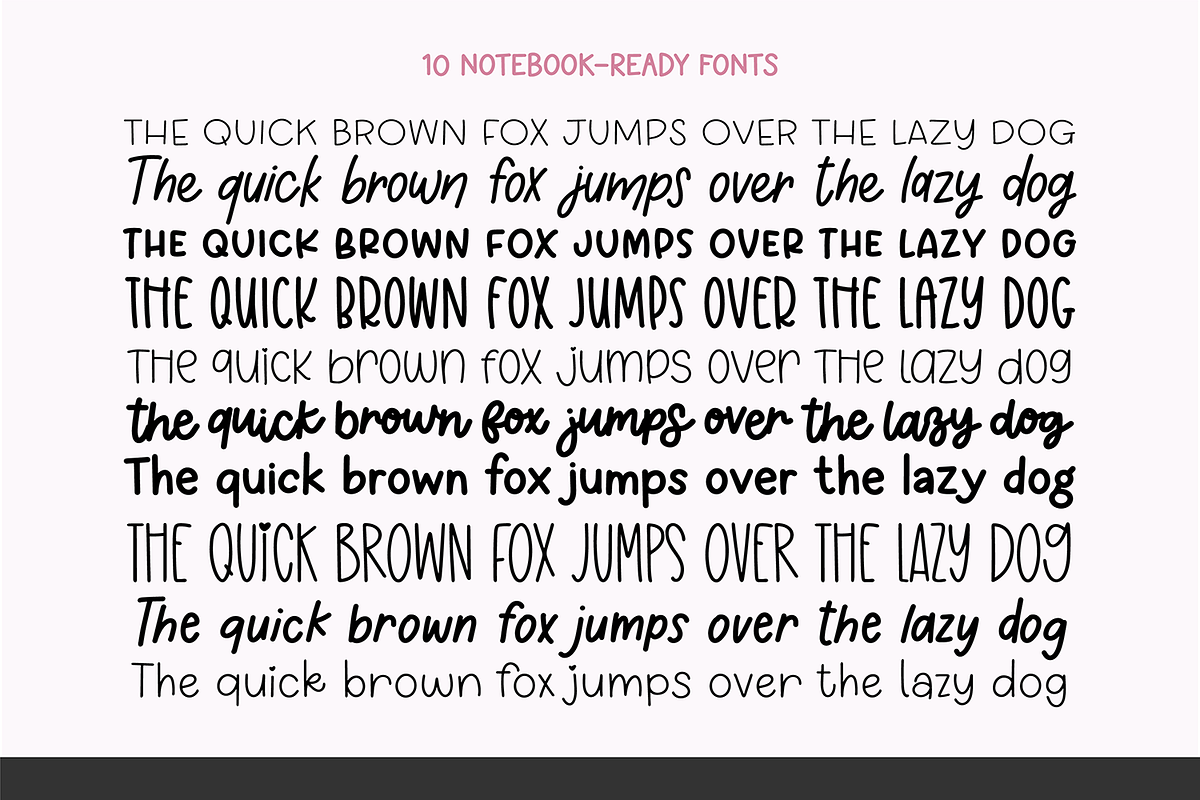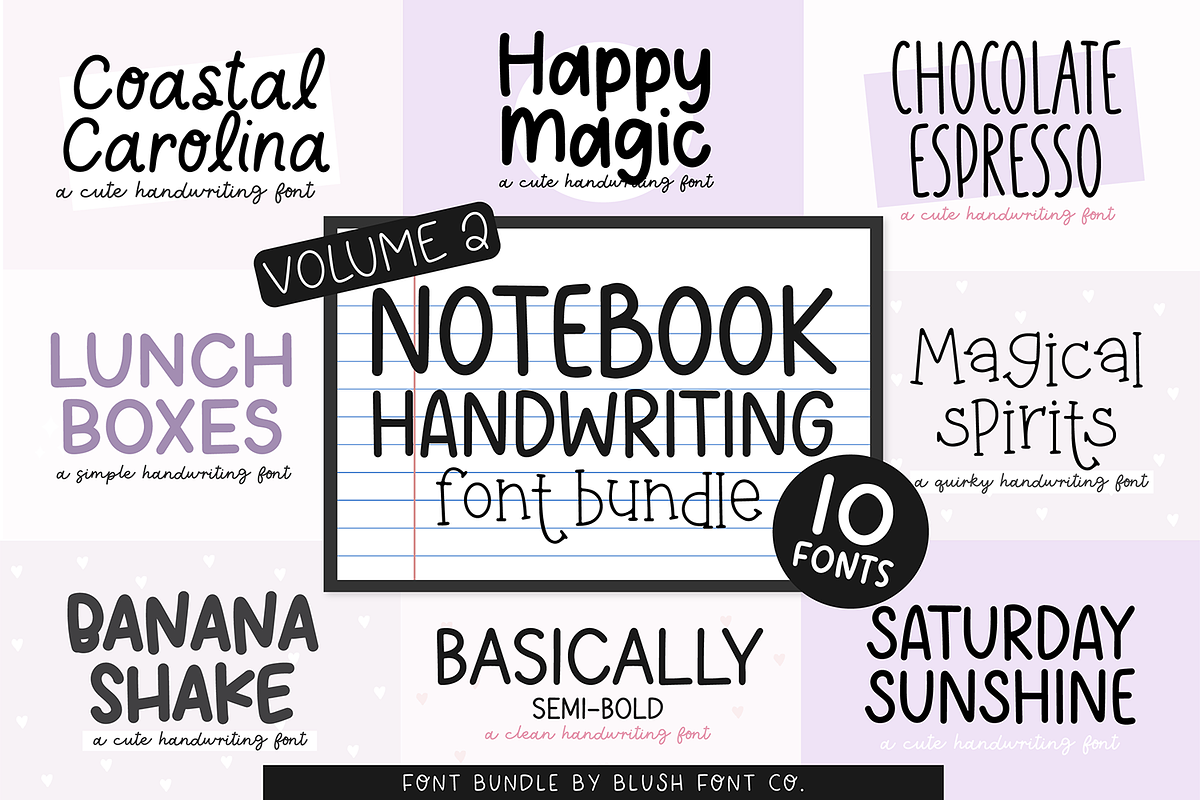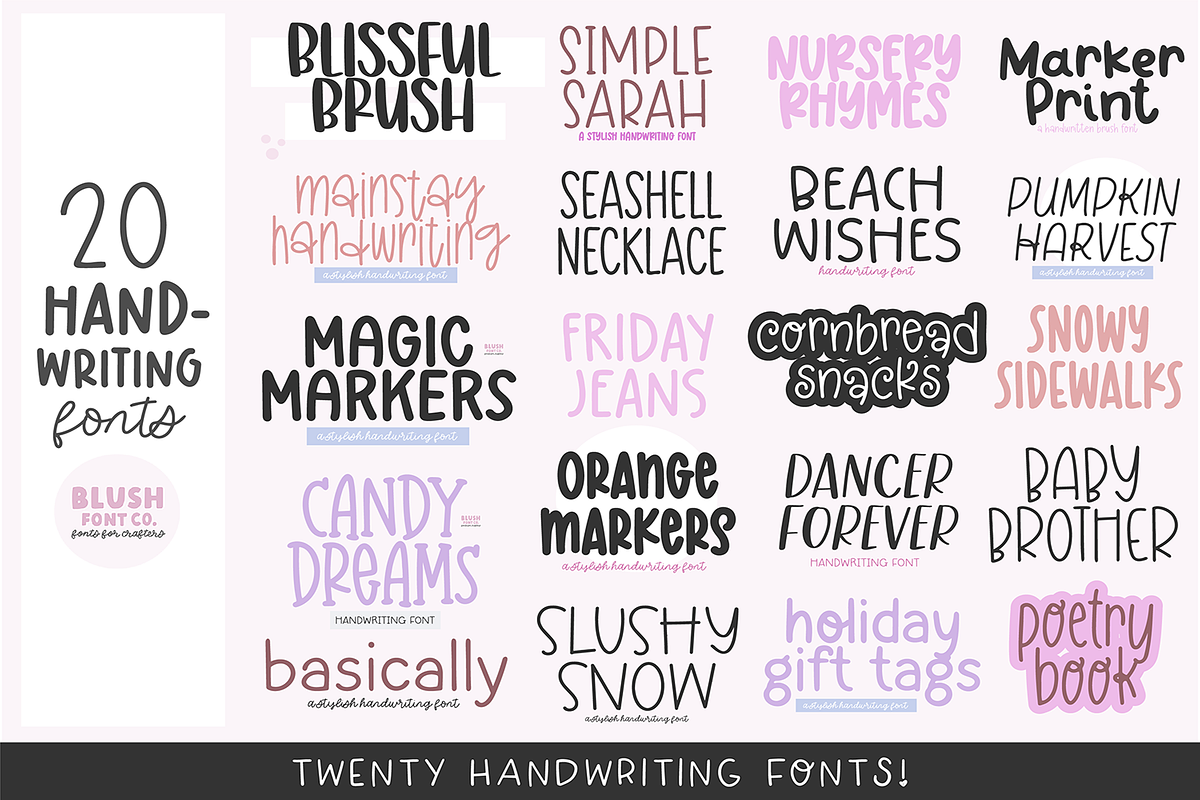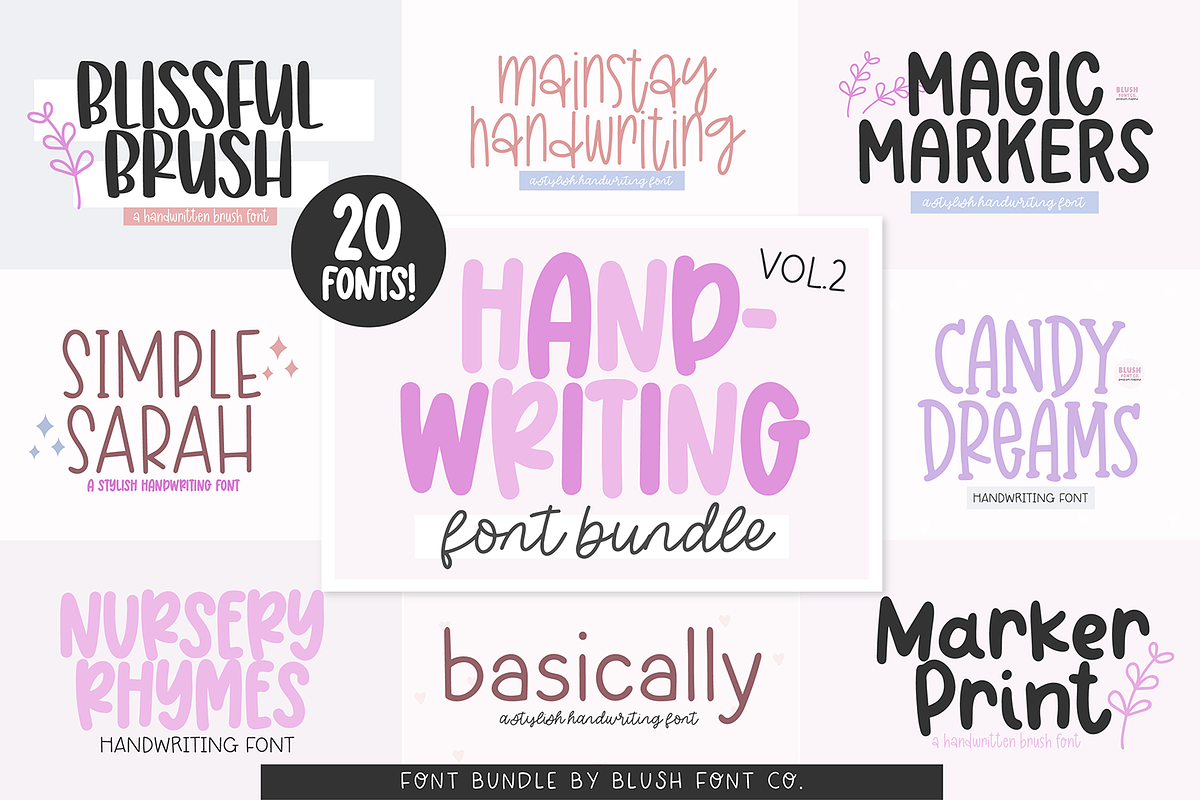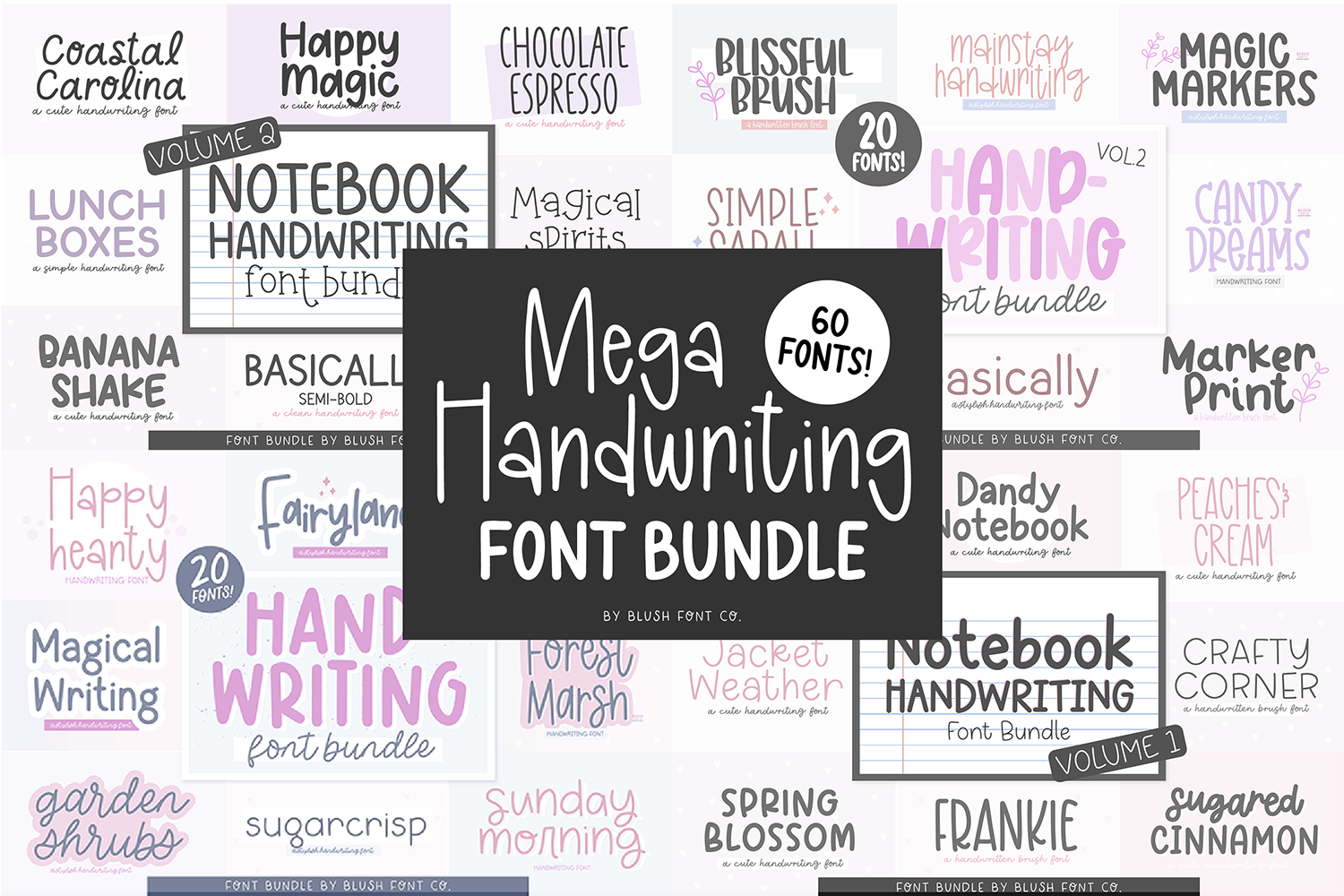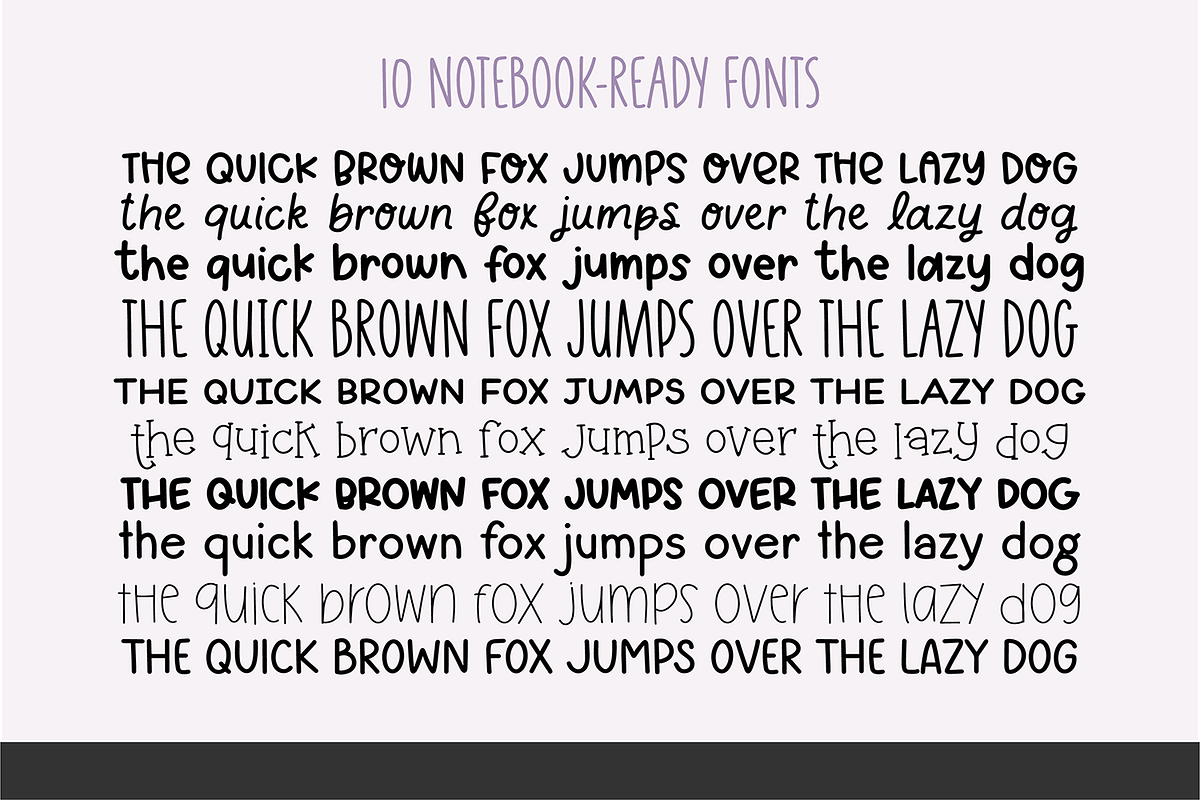
MEGA HANDWRITING Font Bundle V1
MEGA HANDWRITING Font Bundle Vol. 1 - 60 fonts!
60 fonts specialized for note-taking! These fonts were made for digital notebook handwriting and planning. These work in Goodnotes! We have a tutorial on our blog.
This mega bundle includes 4 handwriting bundles.
NOTEBOOK HANDWRITING VOL 1 NOTEBOOK HANDWRITING VOL 2 HANDWRITING FONT BUNDLE VOL 3